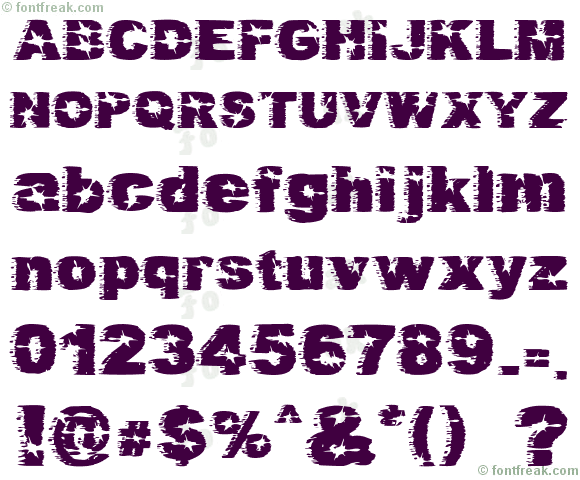
Dirty Harry
The Dirty Harry font, crafted by woodcutter Manero, is a striking display typeface that embodies a rugged and edgy aesthetic. Characterized by its bold, brush-like strokes, this font features a heavy stroke weight combined with an uneven texture that gives it a raw, organic feel. The contrast in the characters is pronounced, with some letters appearing more distressed than others, adding to its unique visual appeal. The spacing between the letters is intentionally irregular, enhancing the chaotic yet artistic essence of the typeface, making it perfect for grabbing attention.
Ideal for various creative projects, the Dirty Harry font excels in applications such as movie posters, where its bold presence can evoke an intense atmosphere. It also works well for branding in the music industry, particularly for bands looking to convey a gritty image. Additionally, this font can enhance restaurant menus that aim for a rustic or edgy theme, creating a memorable dining experience. Graphic designers and content creators will find it valuable for social media graphics, where eye-catching typography is essential for engagement.
The target audience for the Dirty Harry font includes graphic designers, small business owners, and creative professionals seeking an impactful typeface that stands out. This font’s unique personality resonates with those looking to make a statement in their designs.
What truly sets the Dirty Harry font apart is its ability to blend a sense of rebellion with artistic flair. It captures the essence of raw creativity, making it an excellent choice for projects that require a bold and unconventional approach. For anyone interested in adding an edgy touch to their work, the Dirty Harry font free download is a fantastic opportunity to explore a distinctive typographic style.